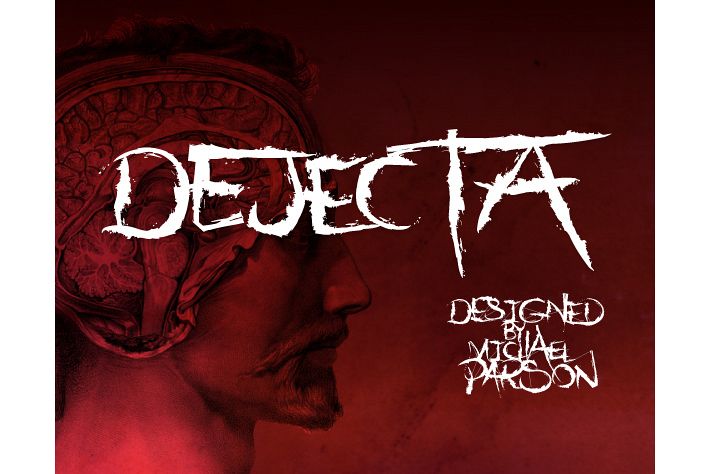
Dejecta
A rough and ragged display typeface, Dejecta is designed as a striking title font packed with a wide range of Opentype features to create original and varied letter combinations.